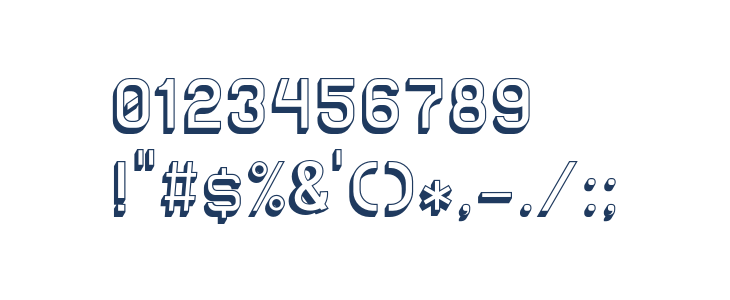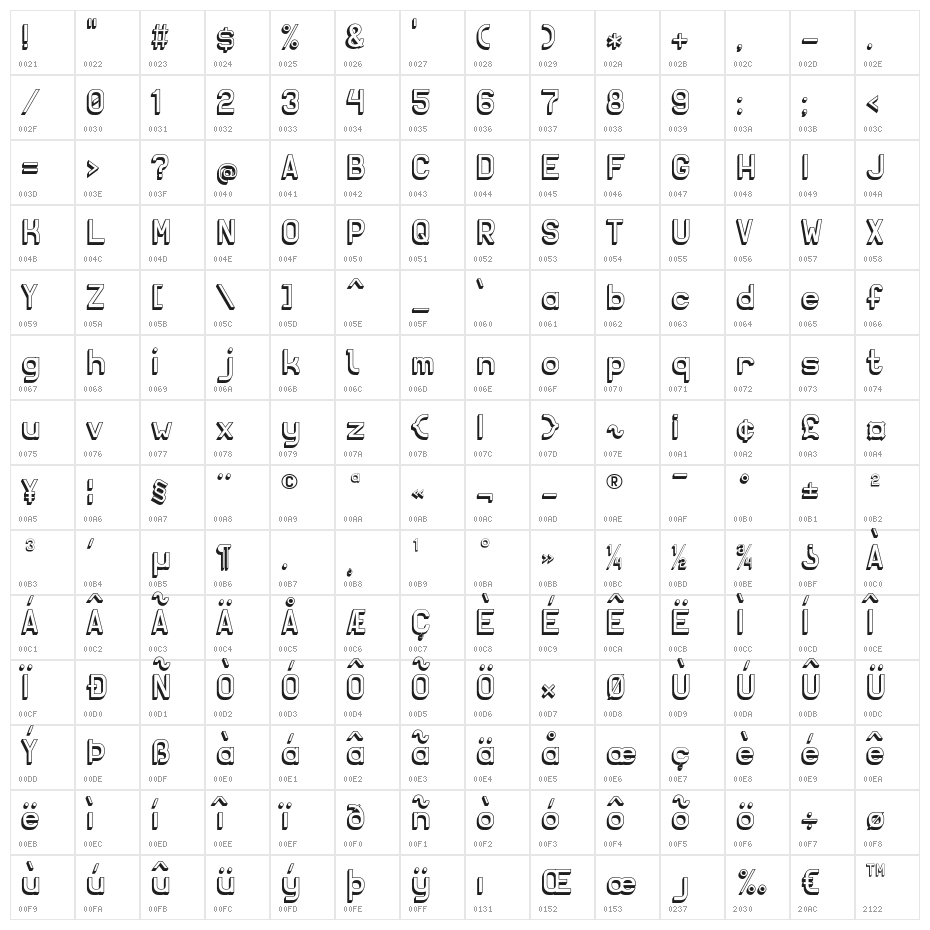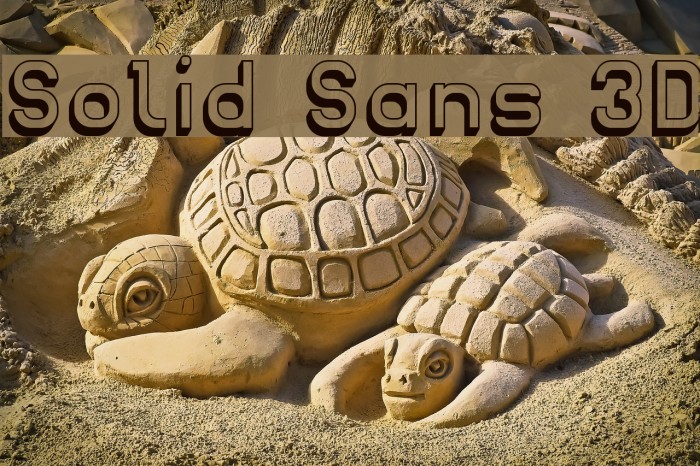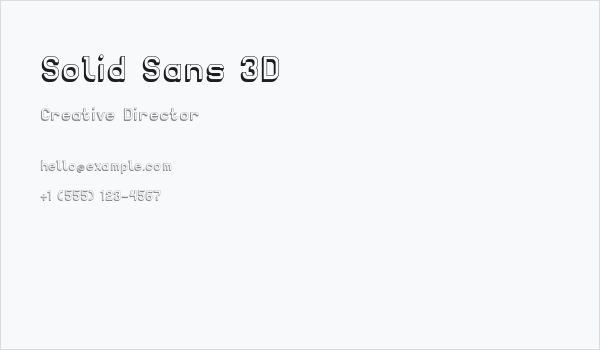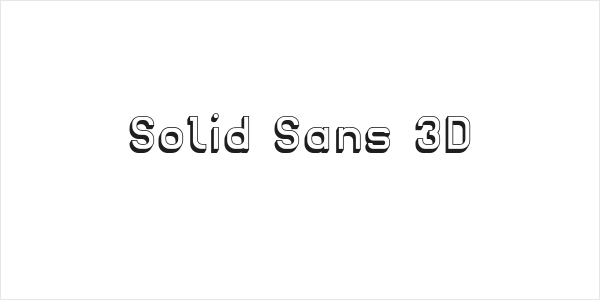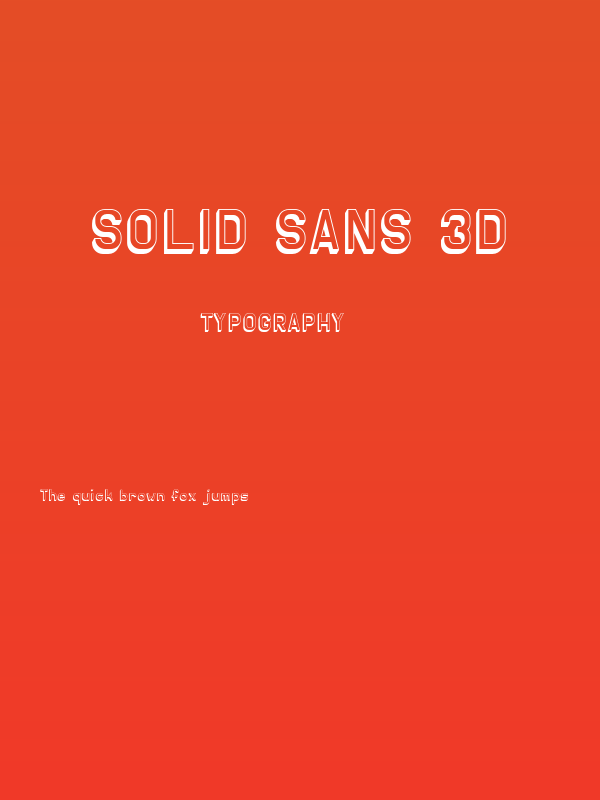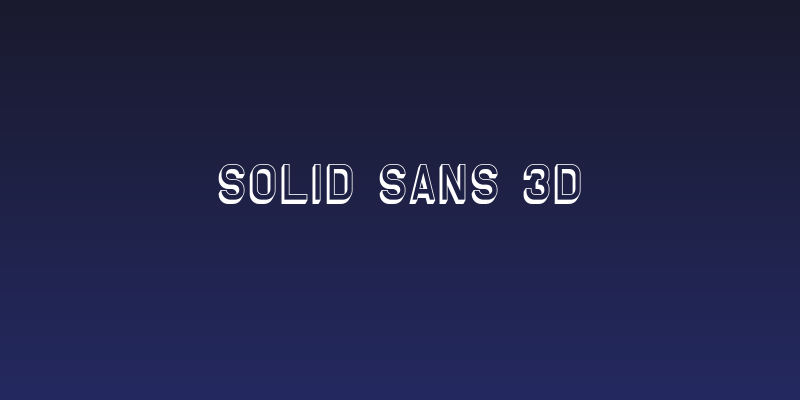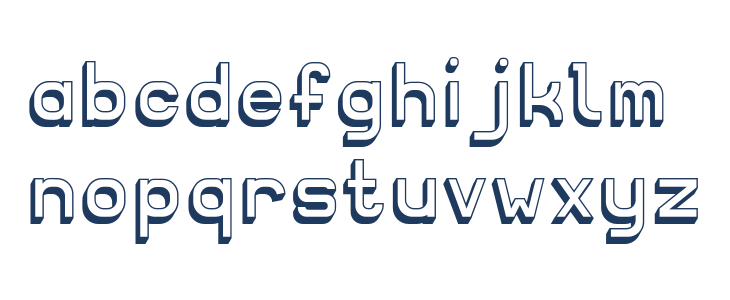
Solid Sans 3D Font
Solid Sans 3D Description
This font features a bold, three-dimensional sans-serif style with a distinct shadow effect that gives it a solid and impactful appearance. The characters are uniformly structured with clean lines and a modern aesthetic. The uppercase and lowercase letters maintain a consistent design, ensuring readability and visual appeal. The numerals and special characters are crafted with the same attention to detail, making them suitable for a variety of design applications. The font's 3D effect adds depth, making it ideal for creating eye-catching headlines and titles.
| Proposed Projects | Ideal for posters, headlines, logos, and any design requiring a bold and modern look. |